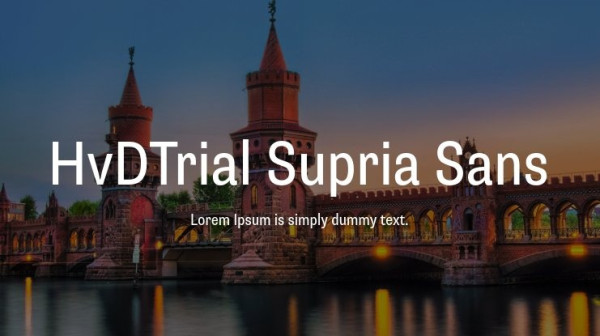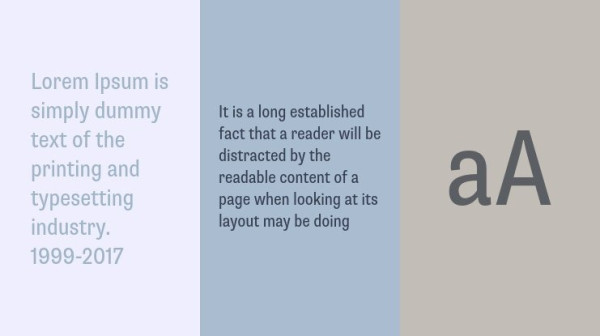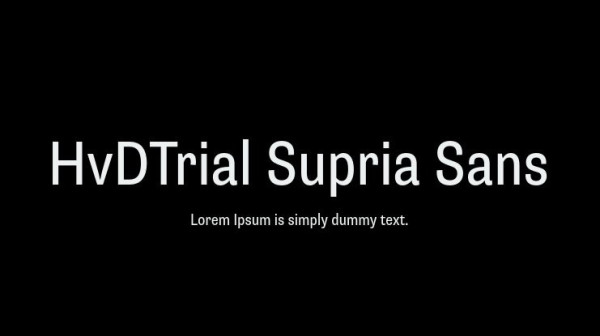
HvDTrial Supria Sans Font, is a sans serif stunning when combined or separately. This sans serif font style is legible and stunningly designed.
HvDTrial Supria Sans Font
| Designer Name: | Hannes von Doehren |
| Classification: | Sans Serif Fonts, Style / Aesthetic Fonts |